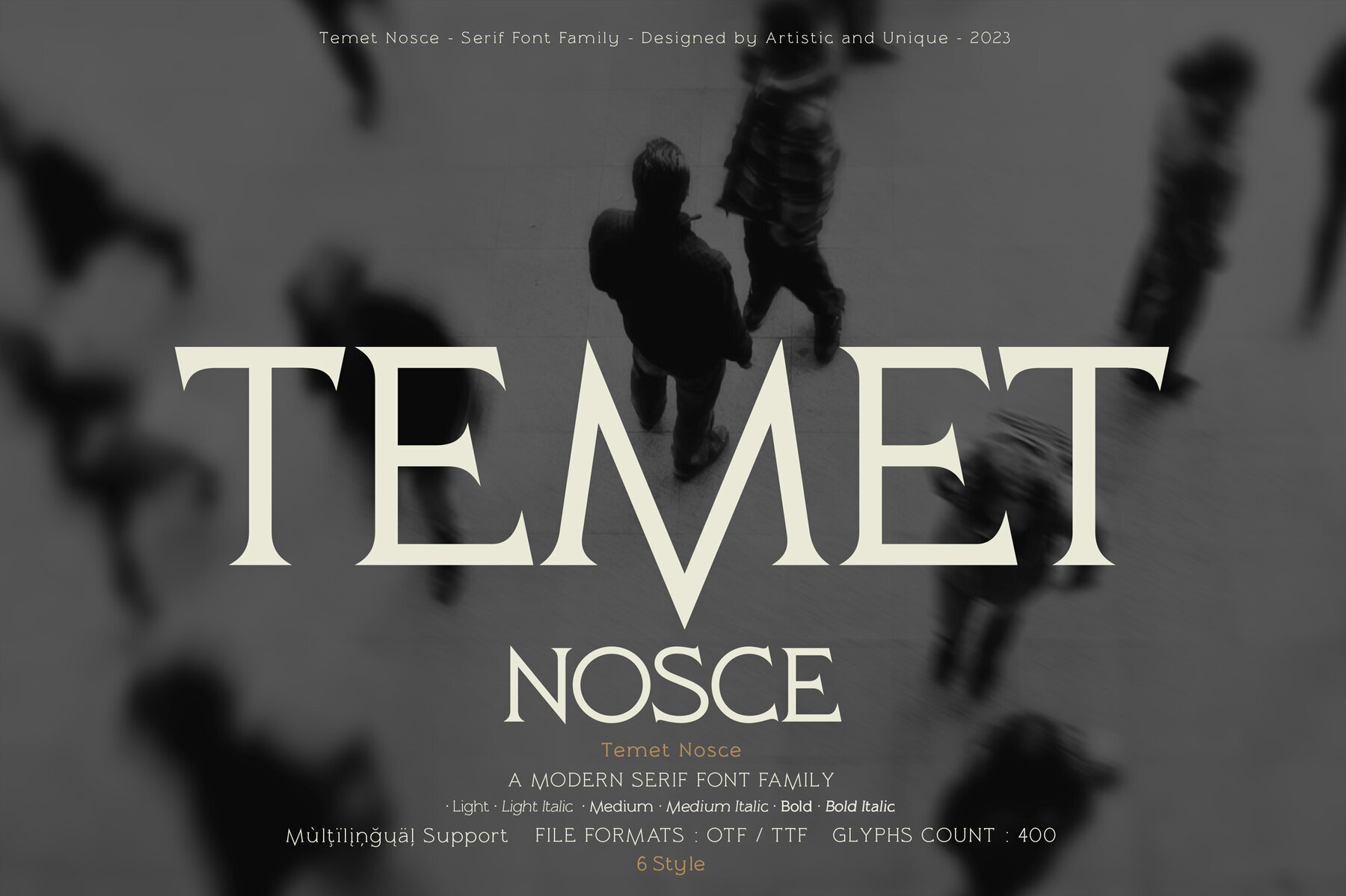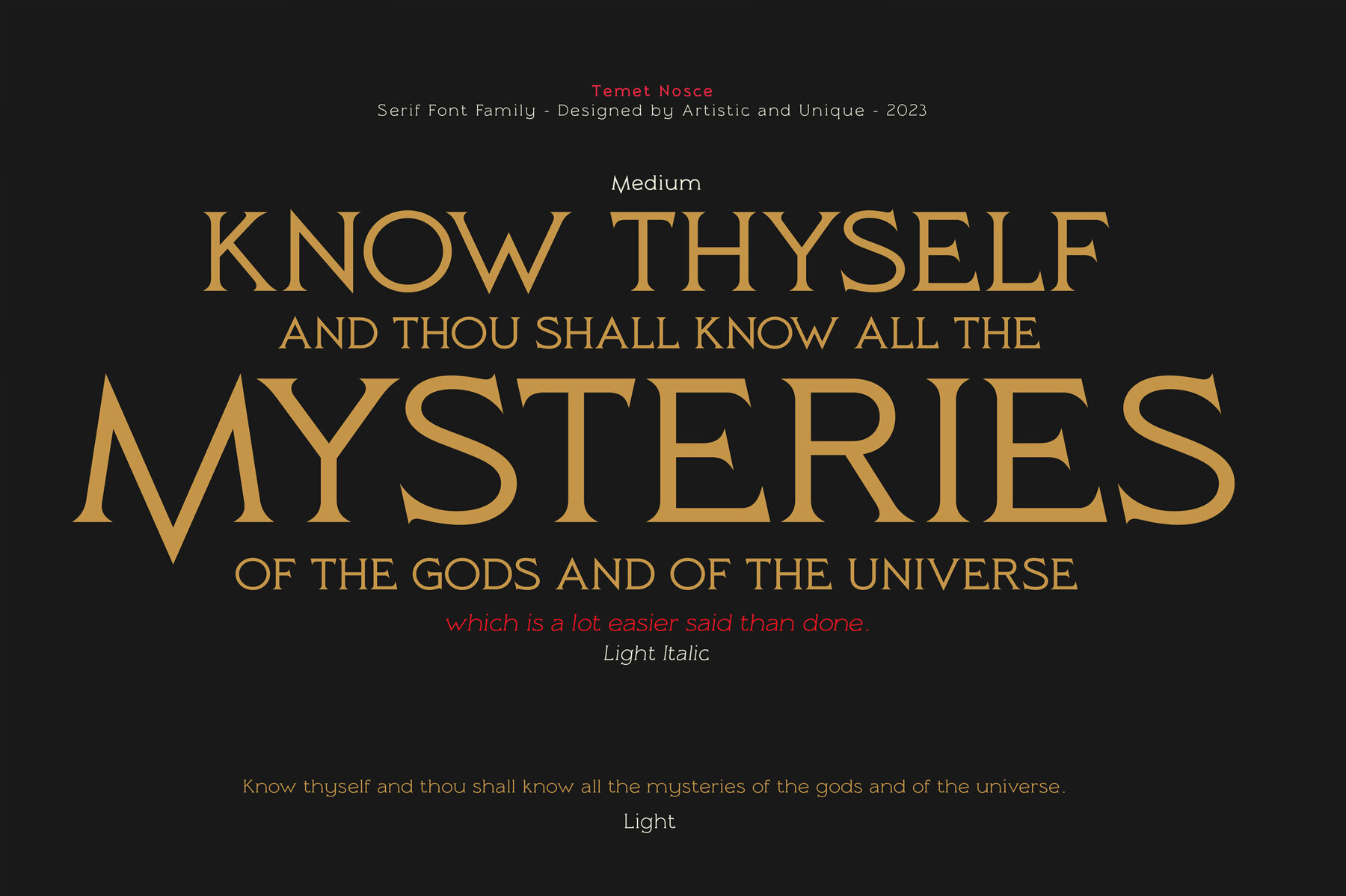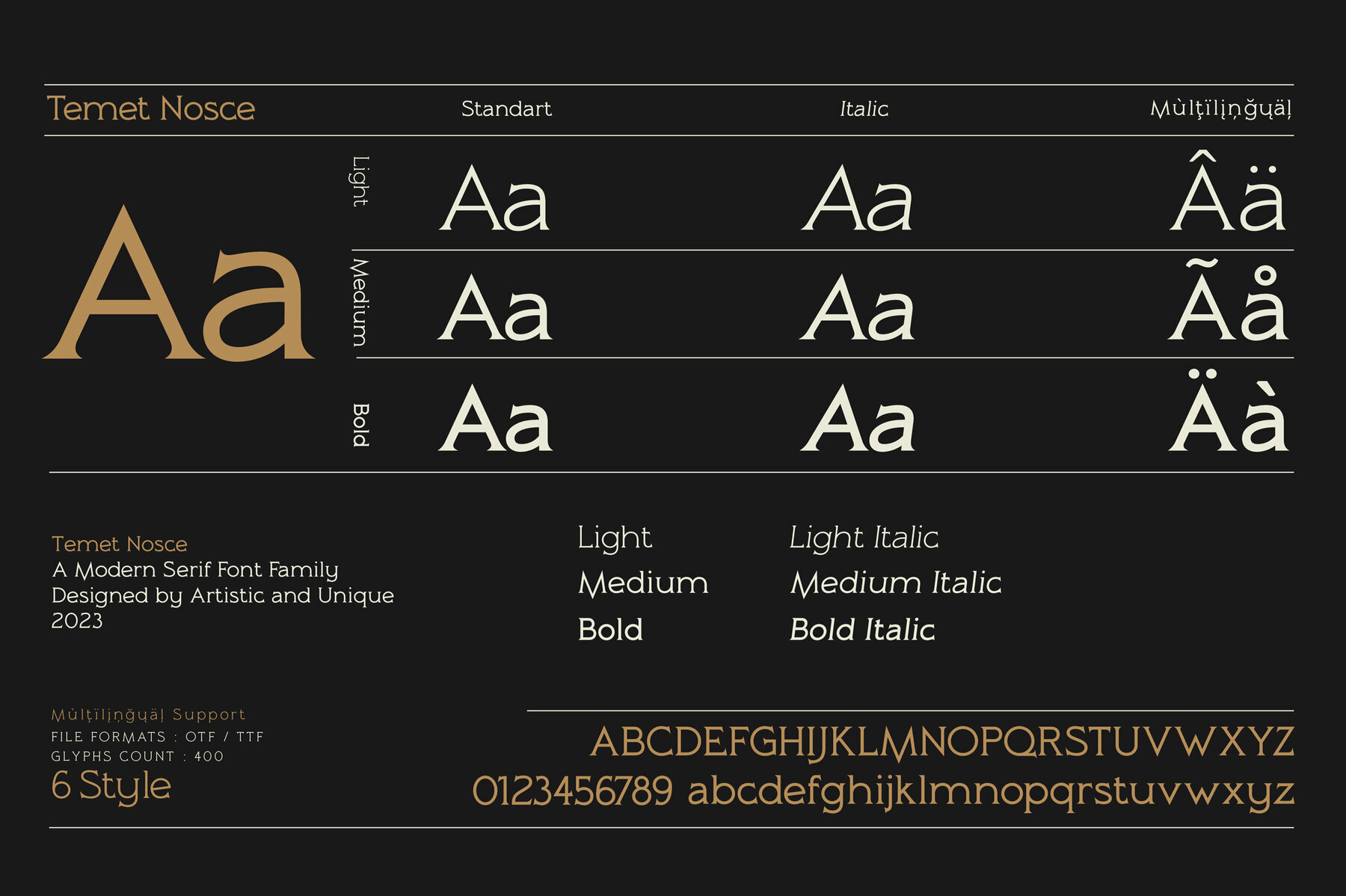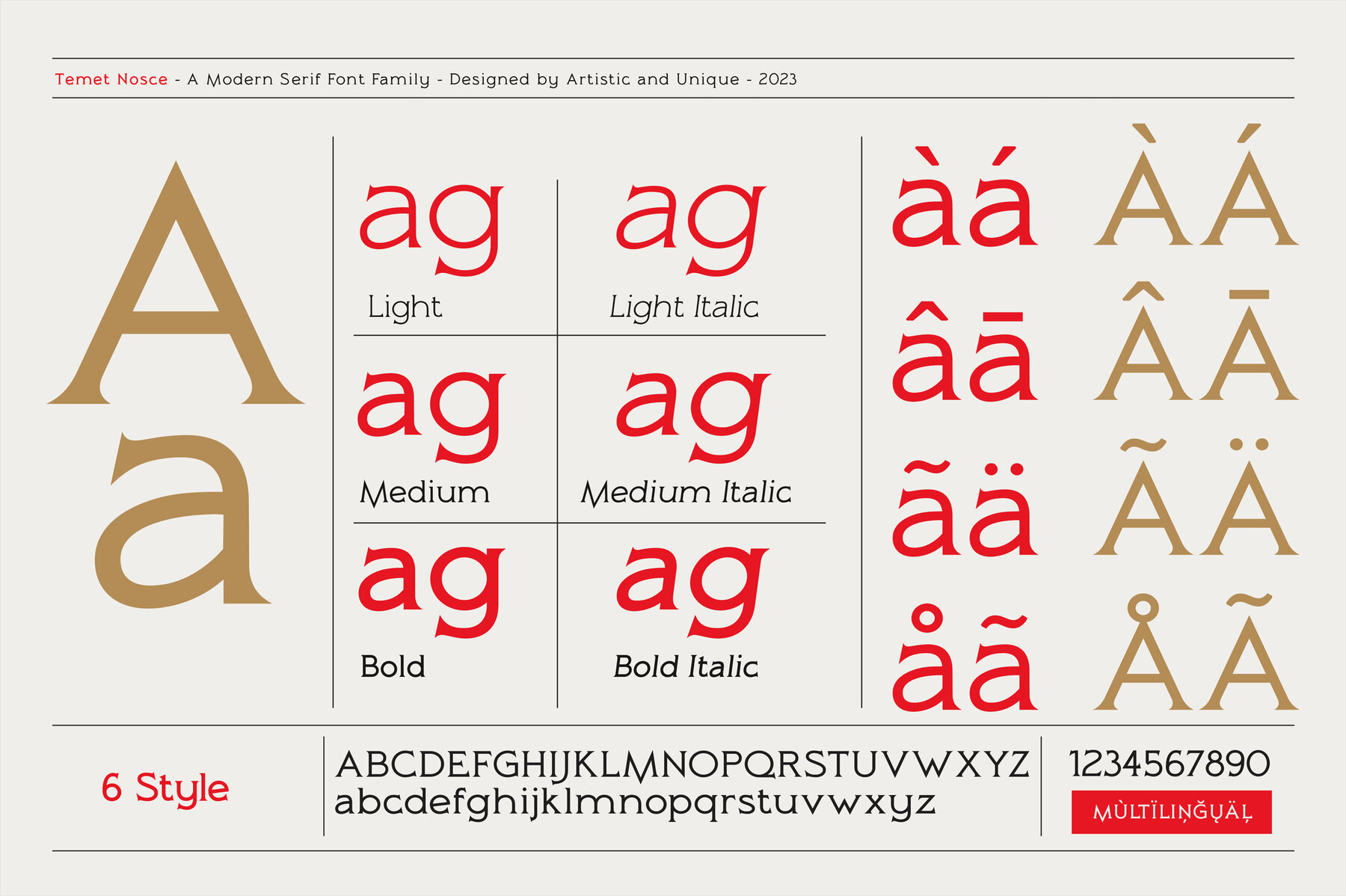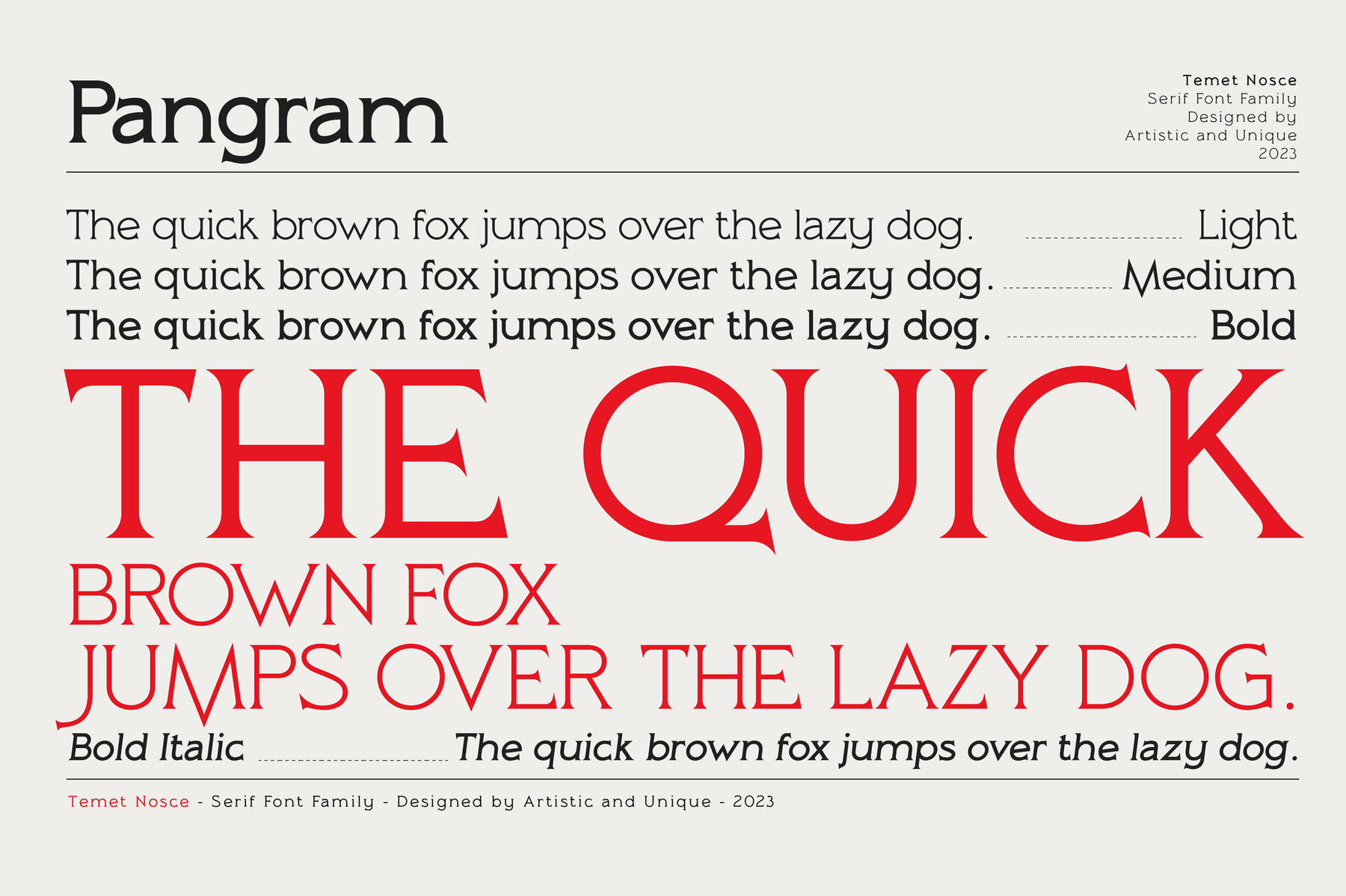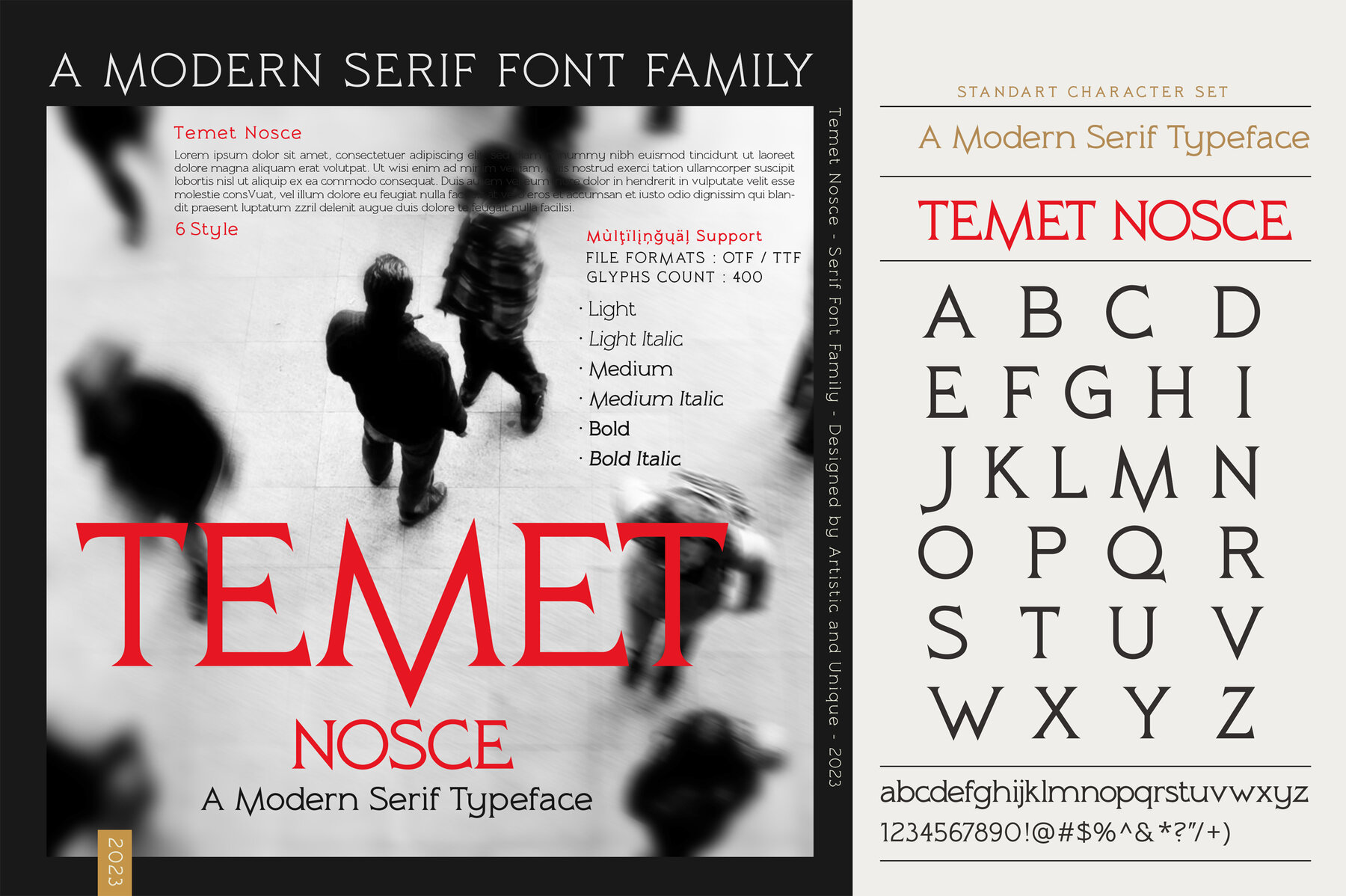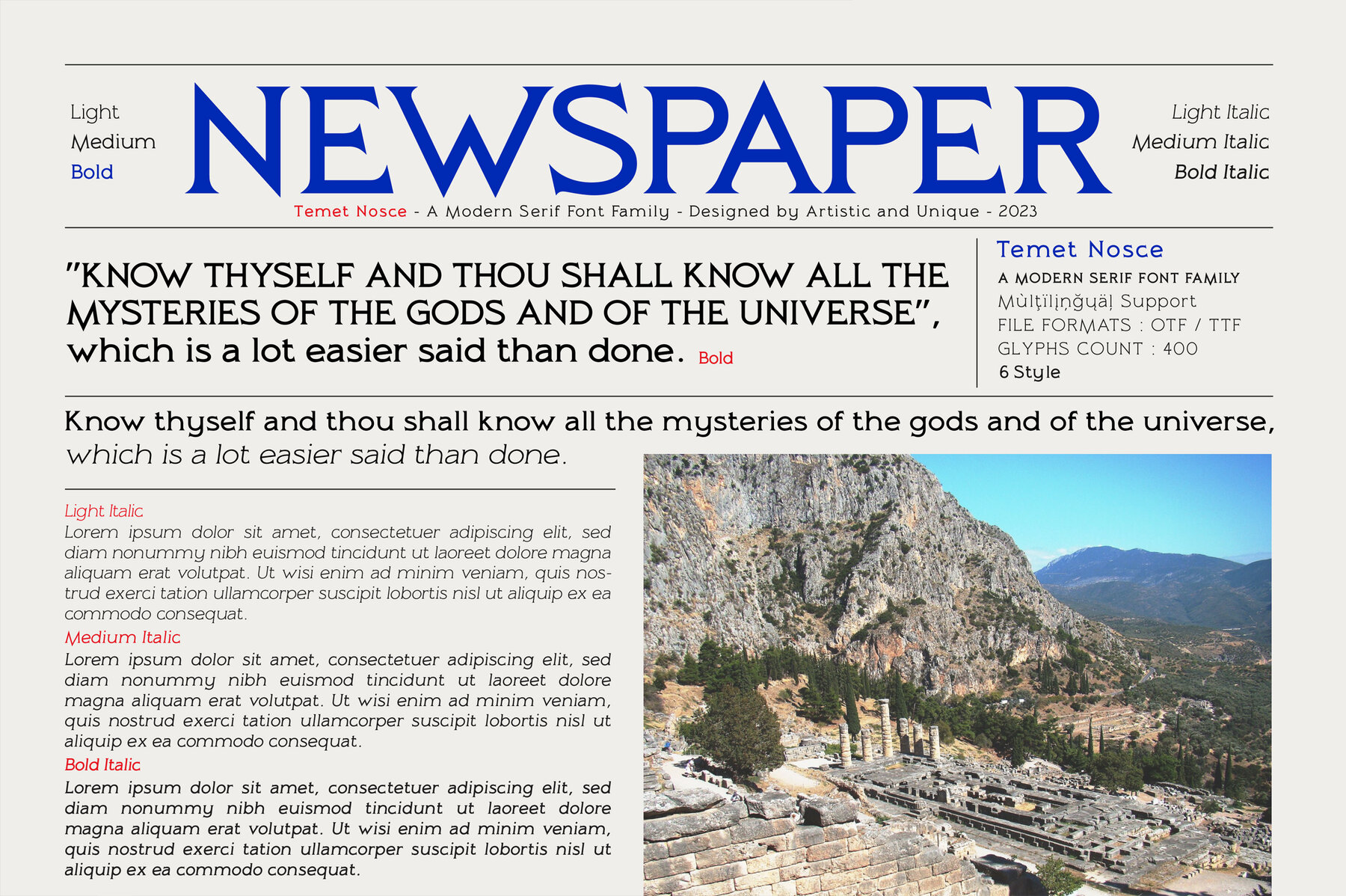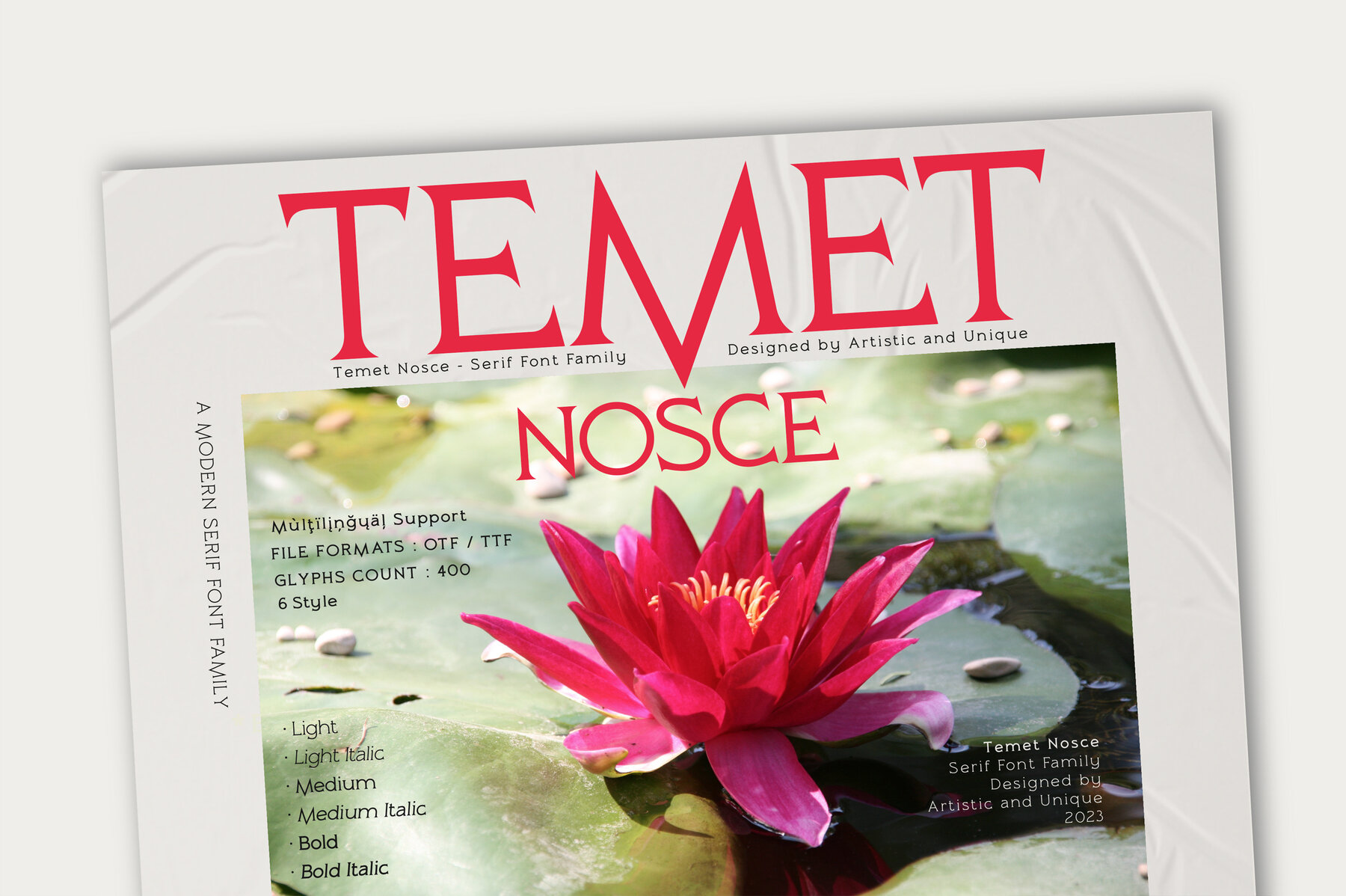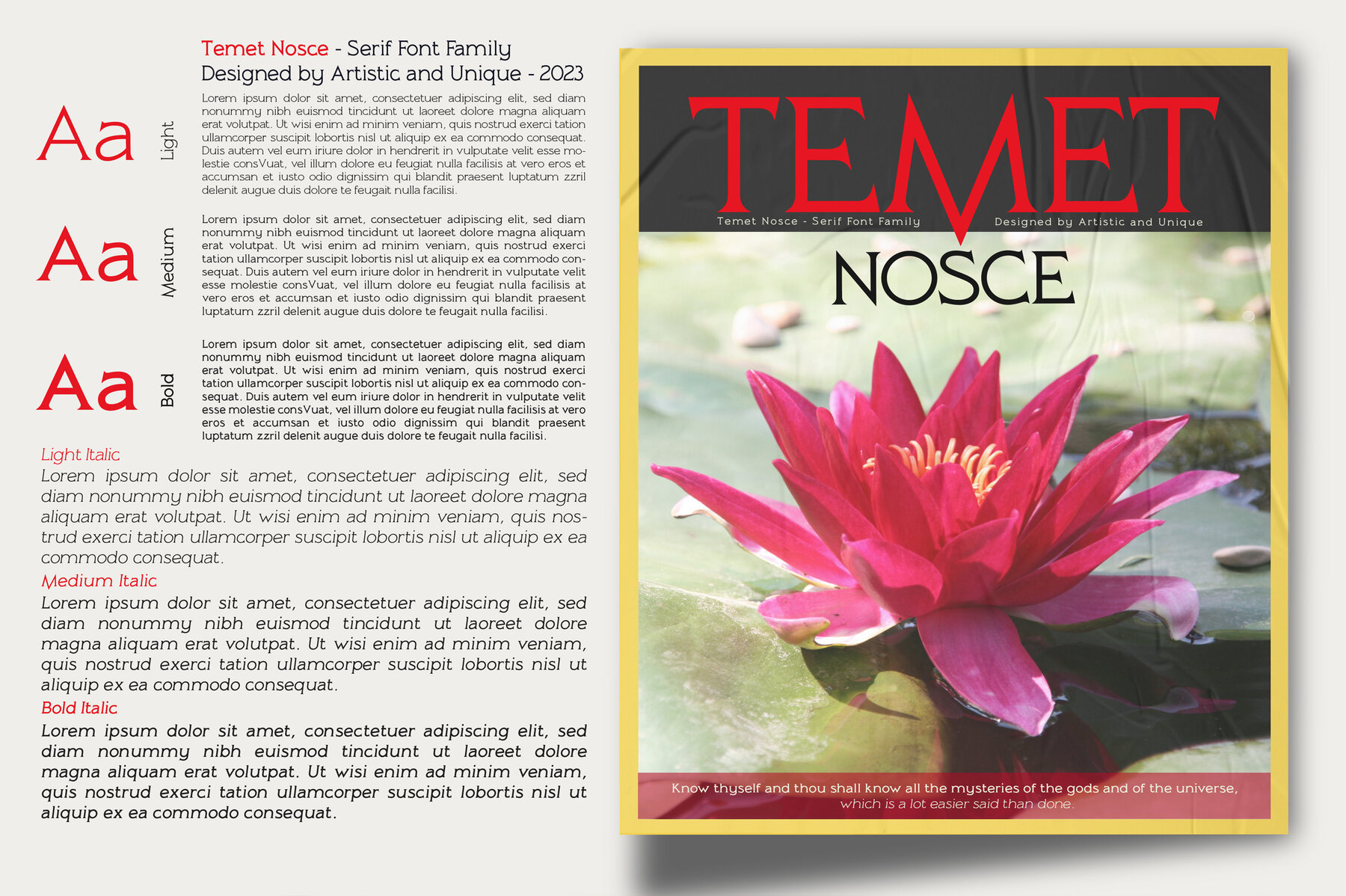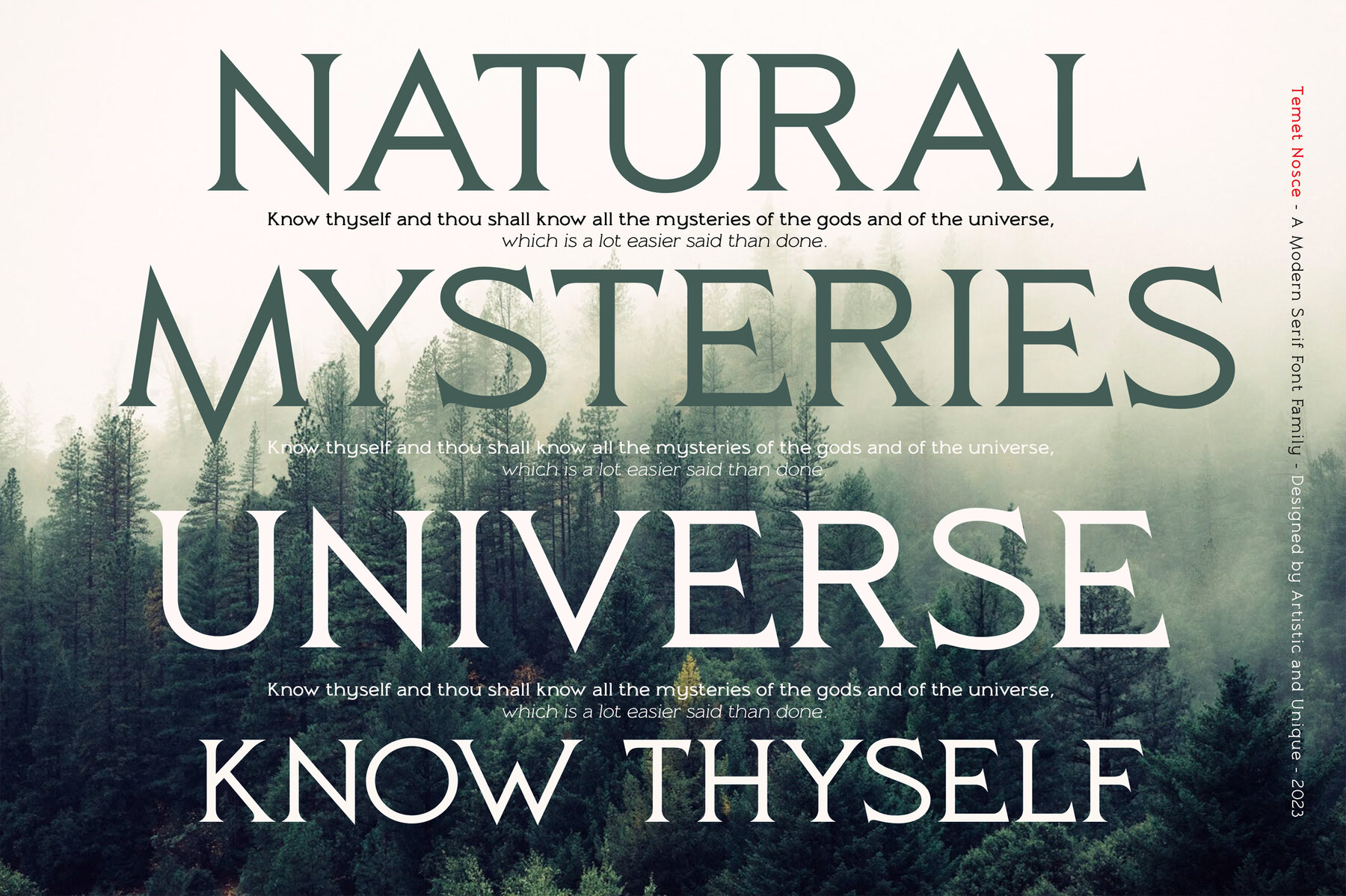
Temet Nosce Font
Temet Nosce is a sophisticated serif font family that embraces historical depth and artistic versatility. Drawing inspiration from the famous ancient Greek maxim "know thyself," this typeface captures the essence of time-honored stone inscriptions with its thoughtful design. Not only does it echo a historical narrative, but it also offers the practicality needed for contemporary design. Ideal for projects ranging from books and magazines to branding and advertising, the Temet Nosce family includes uppercase, lowercase, punctuation, symbols, numbers, ligatures, and provides multilingual support.Temet Nosce: Inspired Serif Font with Historical Depth